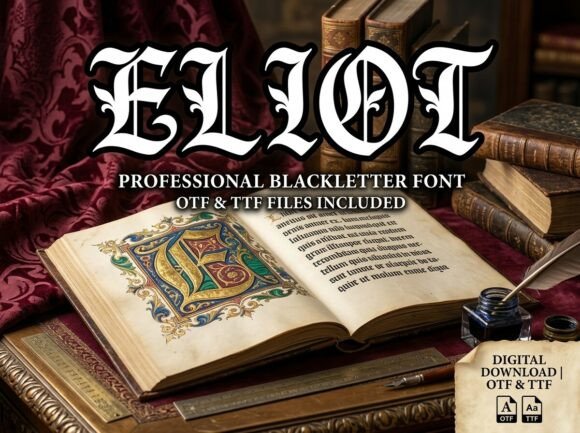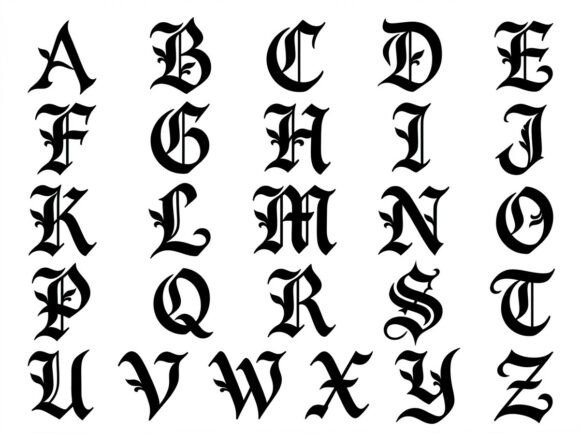
Introducing Eliot Font: A Stunning Decorative Display Font
Are you tired of using the same old fonts for your creative projects? Look no further than Eliot Font, a unique and artistic display font that’s sure to turn heads. Designed to be the center of attention, Eliot Font is perfect for creators who want to break away from the ordinary and add a touch of elegance to their work.
What Makes Eliot Font Special?
Eliot Font is a decorative display font that boasts a strong visual personality, making it ideal for bold headlines, artistic logos, and creative packaging. Its unique artistic elements and sleek design ensure that it maintains a professional and polished finish, even in the most demanding design applications.
Key Features of Eliot Font
• Unique Artistic Elements: Eliot Font features intricate and artistic elements that set it apart from other fonts. Each letter is carefully crafted to make a statement, making it perfect for high-impact headlines and logos.
• Strong Visual Personality: The font’s bold and eye-catching design ensures that it grabs attention and makes a lasting impression.
• Versatility: Eliot Font is versatile enough to be used for a variety of design applications, including bold headlines, artistic logos, and creative packaging.
• Professional and Polished Finish: Despite its bold and artistic design, Eliot Font maintains a professional and polished finish, making it suitable for even the most demanding design projects.
Important Note: All-Caps Display Typeface
IMPORTANT NOTE BEFORE PURCHASE: Eliot Font is an ALL-CAPS (Uppercase Only) display typeface. This means that it does not include lowercase letters. It is specifically designed for high-impact headlines, logos, and decorative initials where every letter is a work of art.
Why Choose Eliot Font?
So why choose Eliot Font for your next design project? Here are just a few reasons:
• Add a Touch of Elegance: Eliot Font adds a touch of elegance and sophistication to any design project, making it perfect for high-end branding and advertising campaigns.
• Stand Out from the Crowd: With its unique artistic elements and strong visual personality, Eliot Font is sure to help your design project stand out from the crowd.
• Perfect for Creative Projects: Whether you’re working on a bold headline, artistic logo, or creative packaging, Eliot Font is the perfect choice.
In conclusion, Eliot Font is a stunning decorative display font that’s perfect for creators who want to add a touch of elegance and sophistication to their design projects. With its unique artistic elements, strong visual personality, and versatility, Eliot Font is sure to turn heads and make a lasting impression. So why wait? Purchase Eliot Font today and take your design projects to the next level!